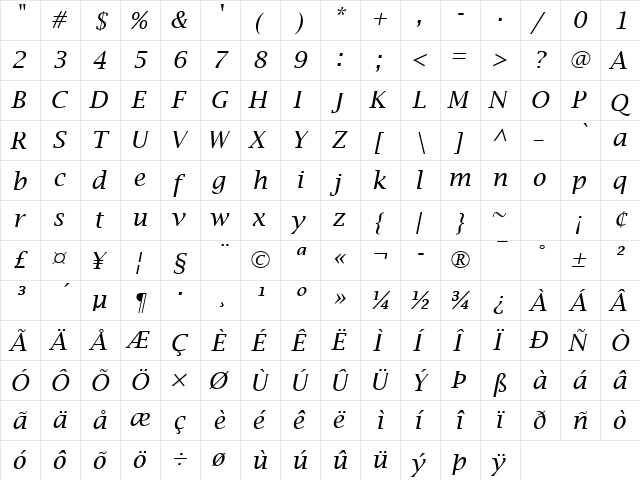
Lucida Becker Bright Italic
Design Context for Lucida Becker Bright Typeface
Lucida Becker Bright is a composed and adaptable typeface that performs quietly and consistently across a wide range of design contexts. Its italic angle brings a sense of urgency and motion to the letterforms.
Pro Tip: Use Lucida Becker Bright for emphasis, pull quotes, and subheadings where its slanted energy can add rhythm to the layout.